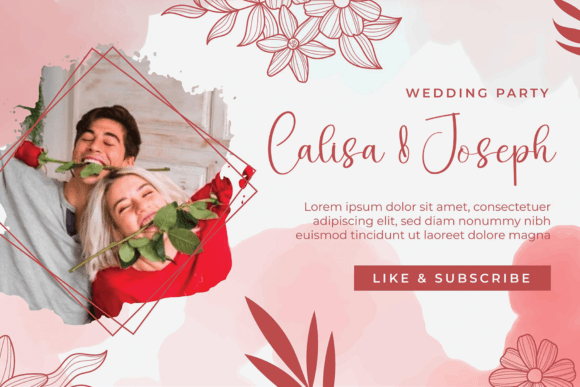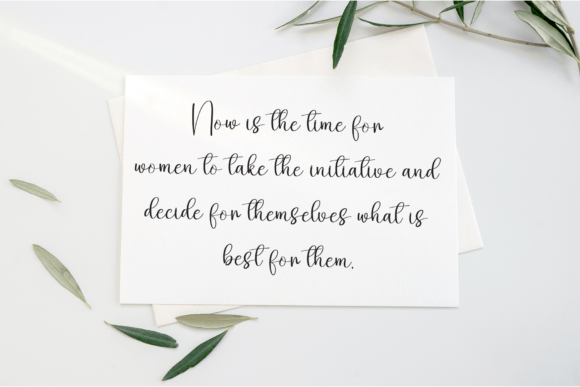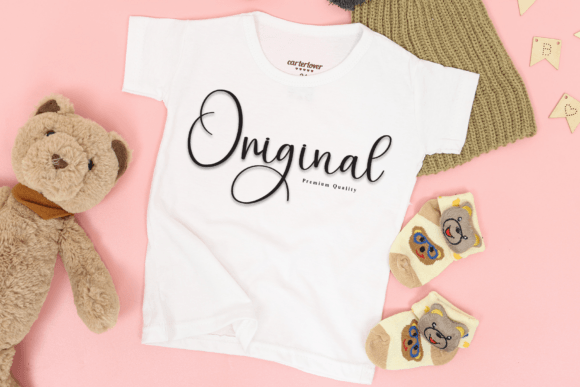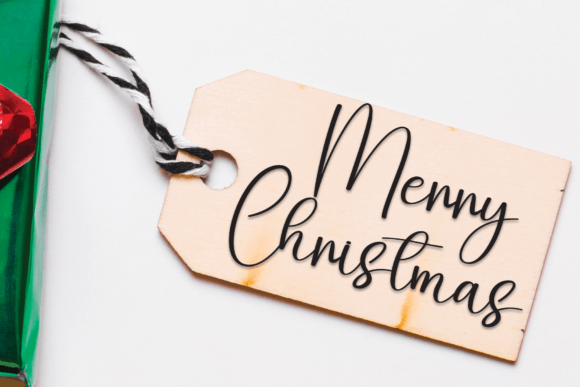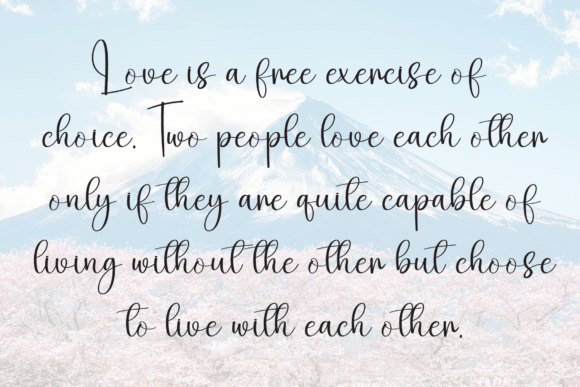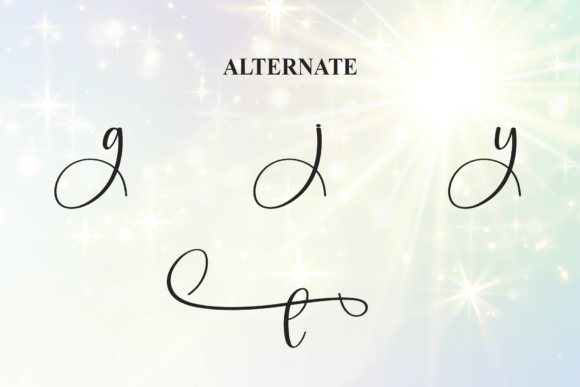
Introducing Brightnes Font: Elevate Your Creativity with Elegance
Are you a designer, crafter, or DIY enthusiast looking for a font that can add a touch of magic to your creative projects? Look no further than Brightnes Font, a beautiful script font that combines elegance with a whimsical flair. In this article, we’ll explore the features and benefits of Brightnes Font, and show you how it can help you turn your creative ideas into stunning works of art.
What is Brightnes Font?
Brightnes Font is a carefully crafted script font that is designed to bring a touch of elegance and sophistication to your creative projects. With its flowing lines and intricate details, this font is perfect for a wide range of applications, from Instagram graphics and social media posts to calligraphy scripts and DIY projects.
Key Features of Brightnes Font
• Elegant and Whimsical Design: Brightnes Font features a unique blend of elegance and playfulness, making it perfect for creative projects that require a touch of sophistication and whimsy.
• Highly Versatile: This font is suitable for a wide range of applications, including Instagram graphics, social media posts, calligraphy scripts, DIY projects, and more.
• Easy to Read and Write: Despite its intricate details, Brightnes Font is highly legible and easy to read, making it perfect for use in both digital and print applications.
• Magical and Artistic: With its flowing lines and intricate details, Brightnes Font is sure to add a touch of magic to your creative projects.
Use Cases for Brightnes Font
Brightnes Font is a highly versatile font that can be used in a wide range of creative projects. Here are some ideas to get you started:
• Instagram Graphics: Use Brightnes Font to create stunning Instagram graphics that showcase your creativity and style.
• Calligraphy Scripts: Add a touch of elegance to your calligraphy scripts with Brightnes Font, perfect for DIY projects and handmade cards.
• Social Media Posts: Use Brightnes Font to create eye-catching social media posts that stand out from the crowd.
• DIY Projects: Add a touch of magic to your DIY projects, such as handmade cards, gift tags, and scrapbooking pages.
Why Choose Brightnes Font?
With so many fonts available, why choose Brightnes Font? Here are just a few reasons why this font stands out from the rest:
• Unique and Exclusive Design: Brightnes Font features a unique and exclusive design that is sure to make your creative projects stand out.
• High-Quality and Legible: This font is designed to be highly legible and easy to read, making it perfect for use in both digital and print applications.
• Elegant and Sophisticated: Brightnes Font combines elegance and sophistication with a touch of whimsy, making it perfect for creative projects that require a touch of magic.